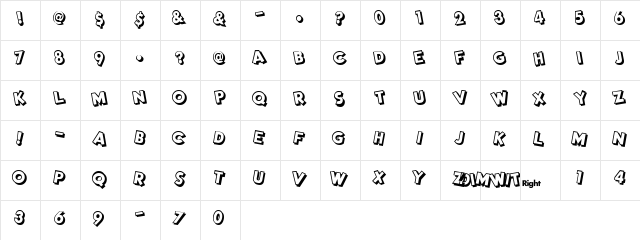
DimWitRight Regular
Design Context for DimWitRight Typeface
DimWitRight is a composed and adaptable typeface that performs quietly and consistently across a wide range of design contexts.
Pro Tip: Use DimWitRight in both headline and body roles to test its range before committing to a single application.